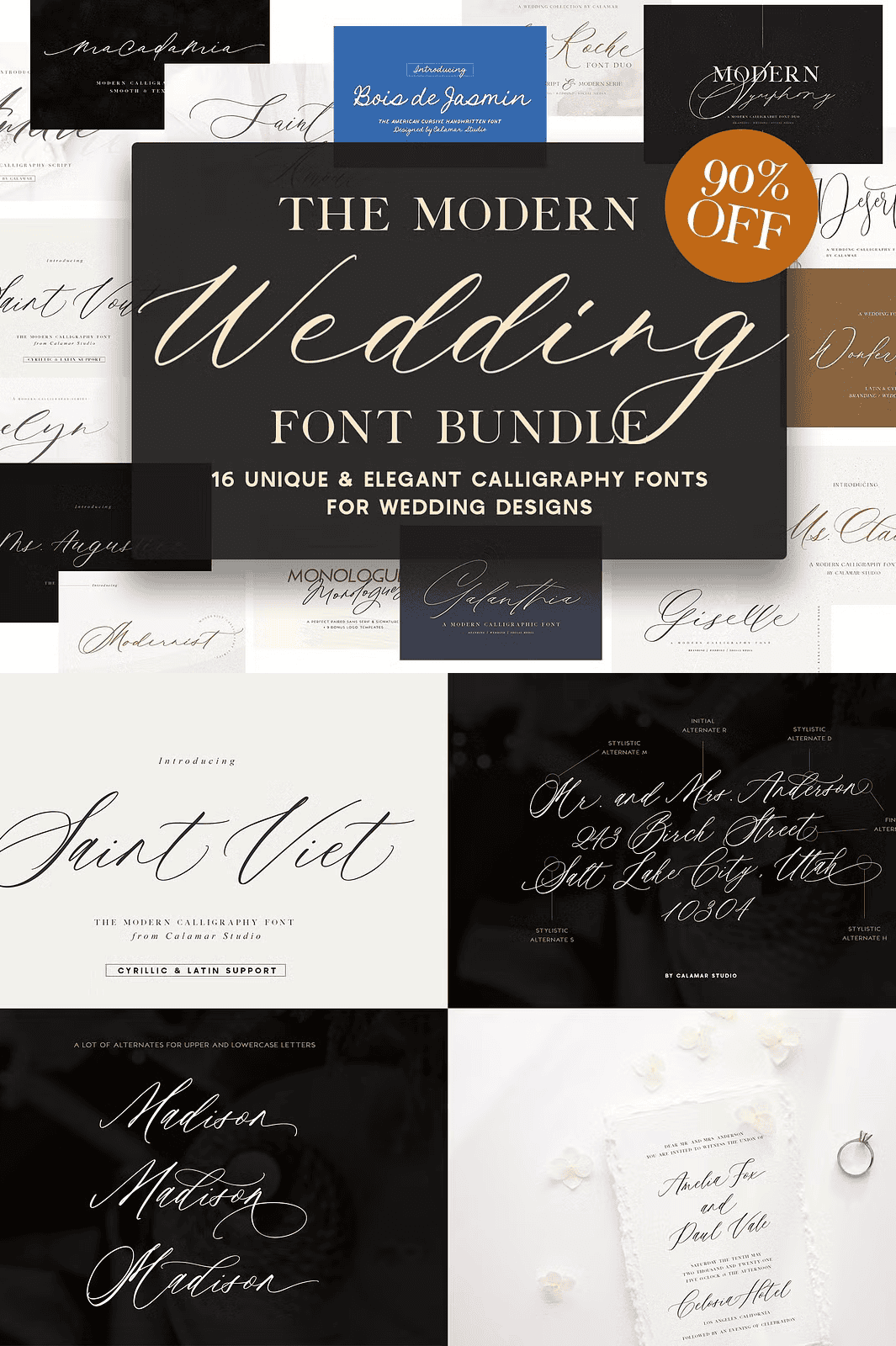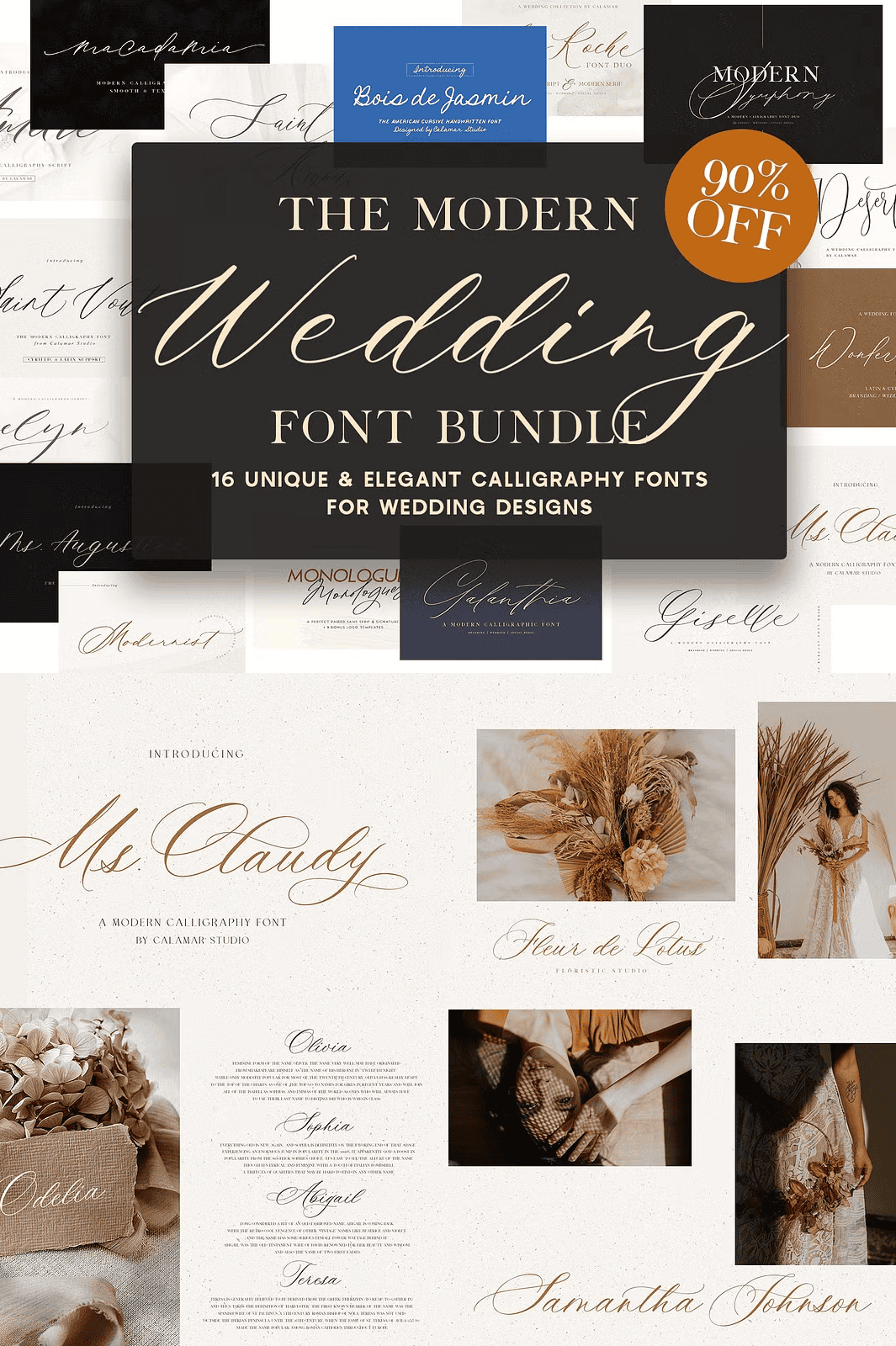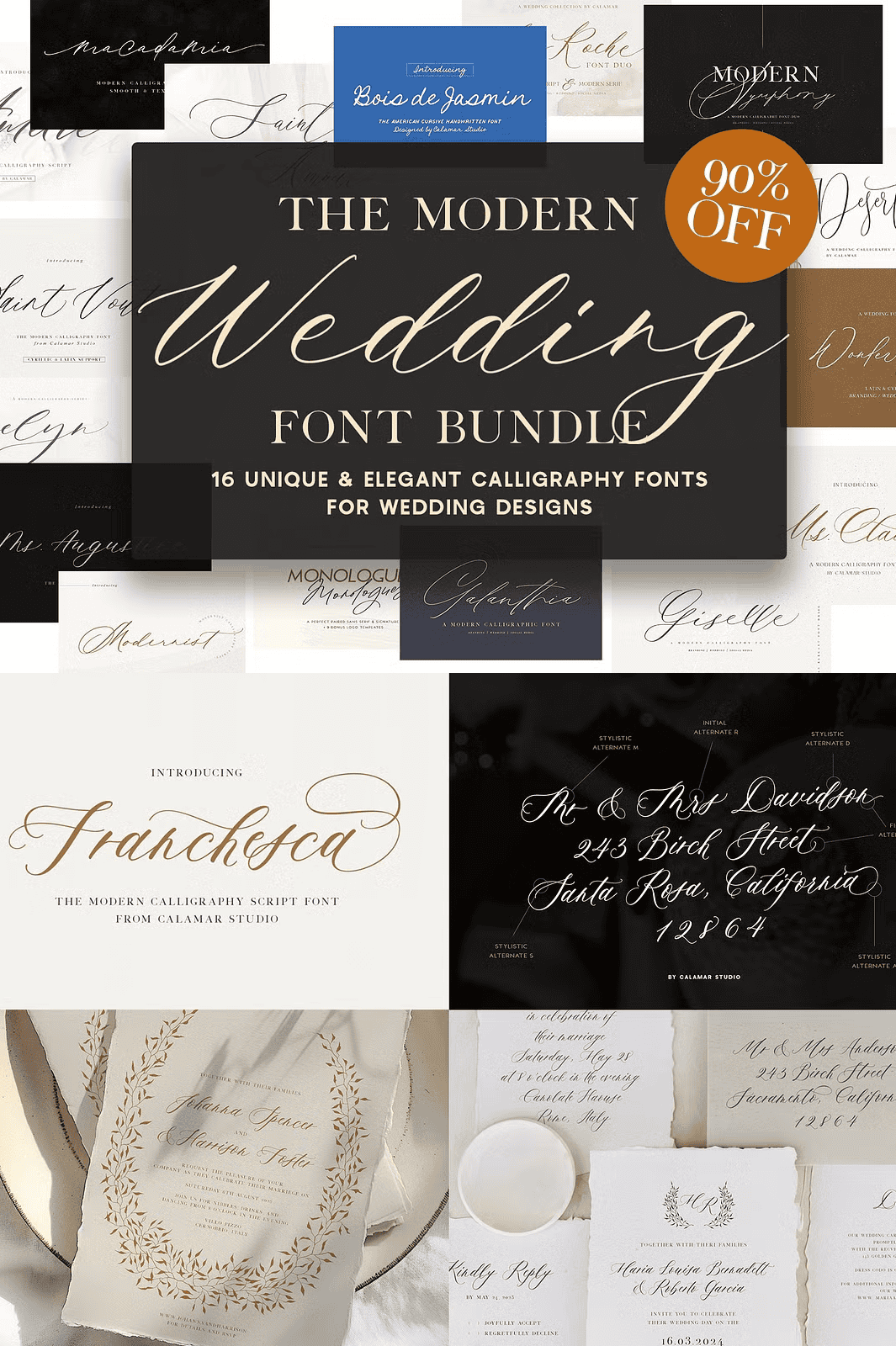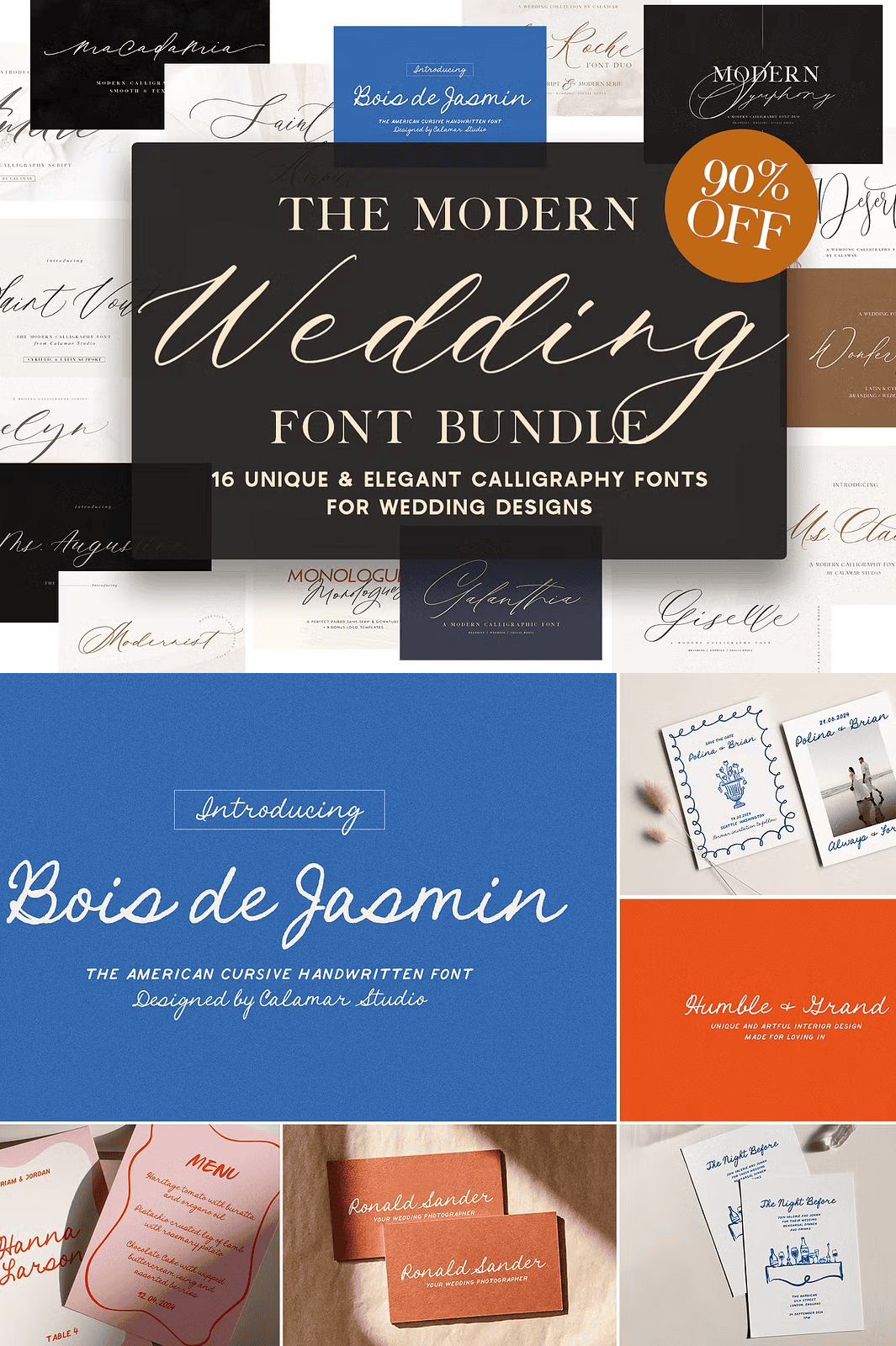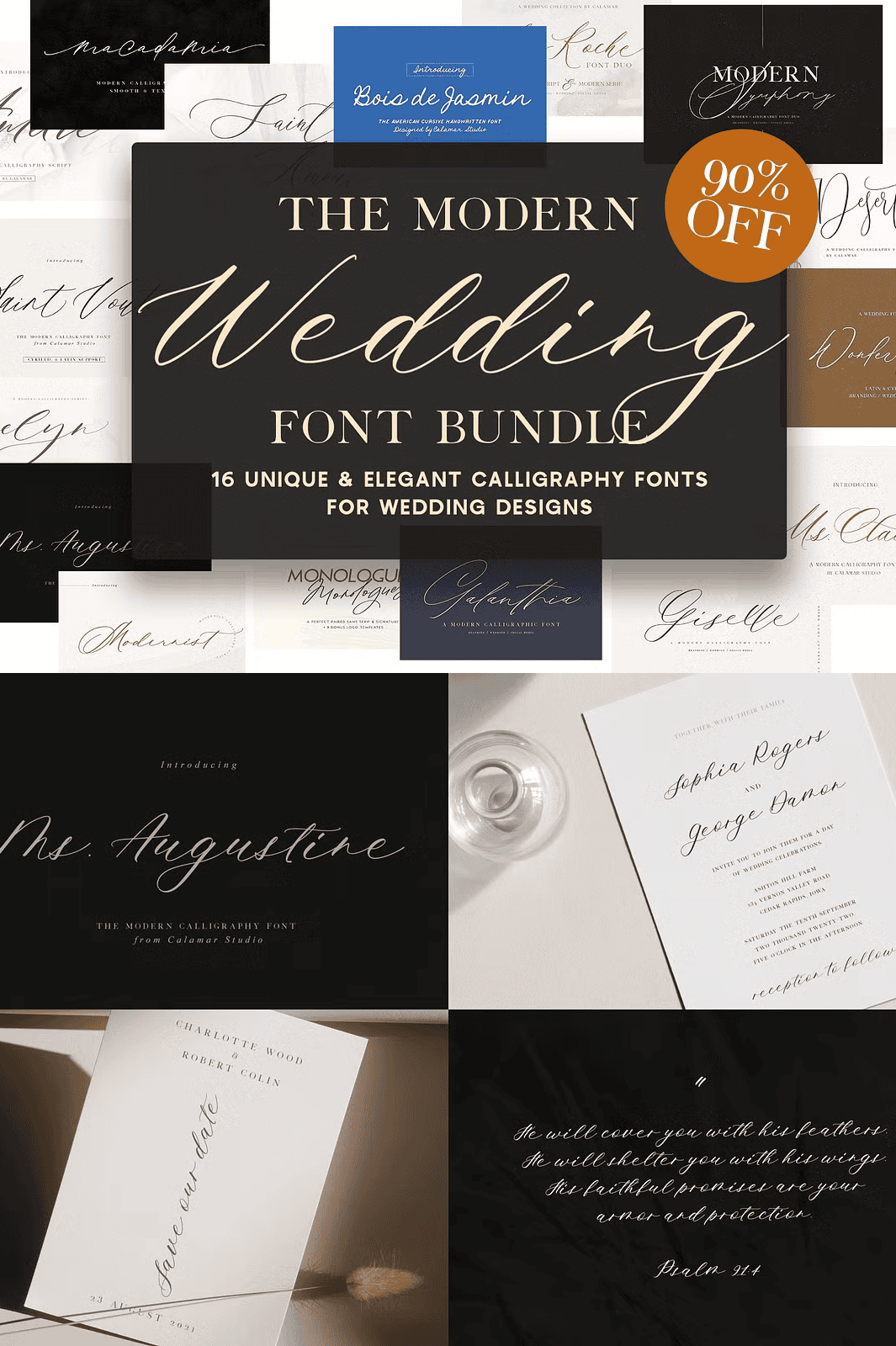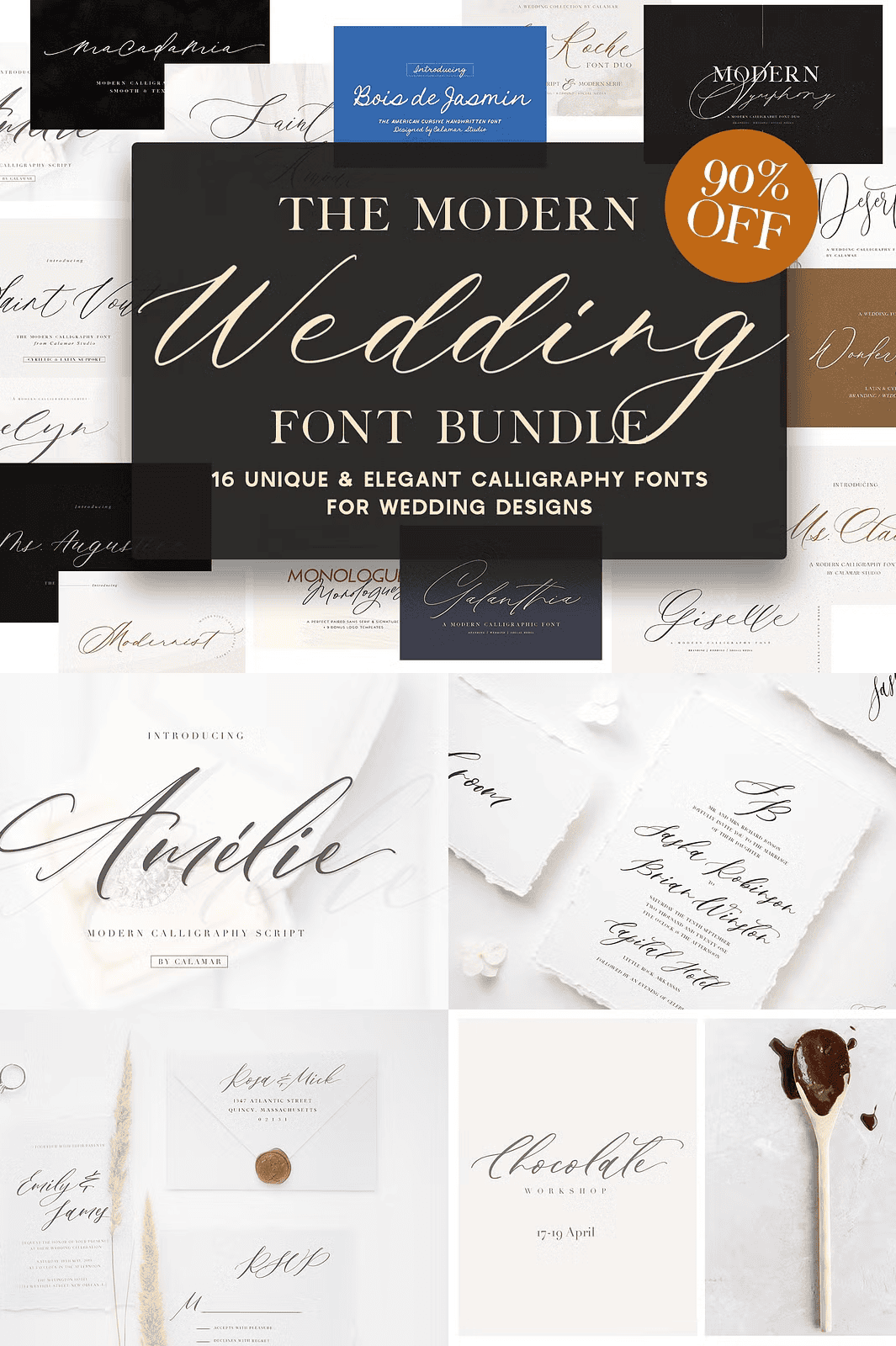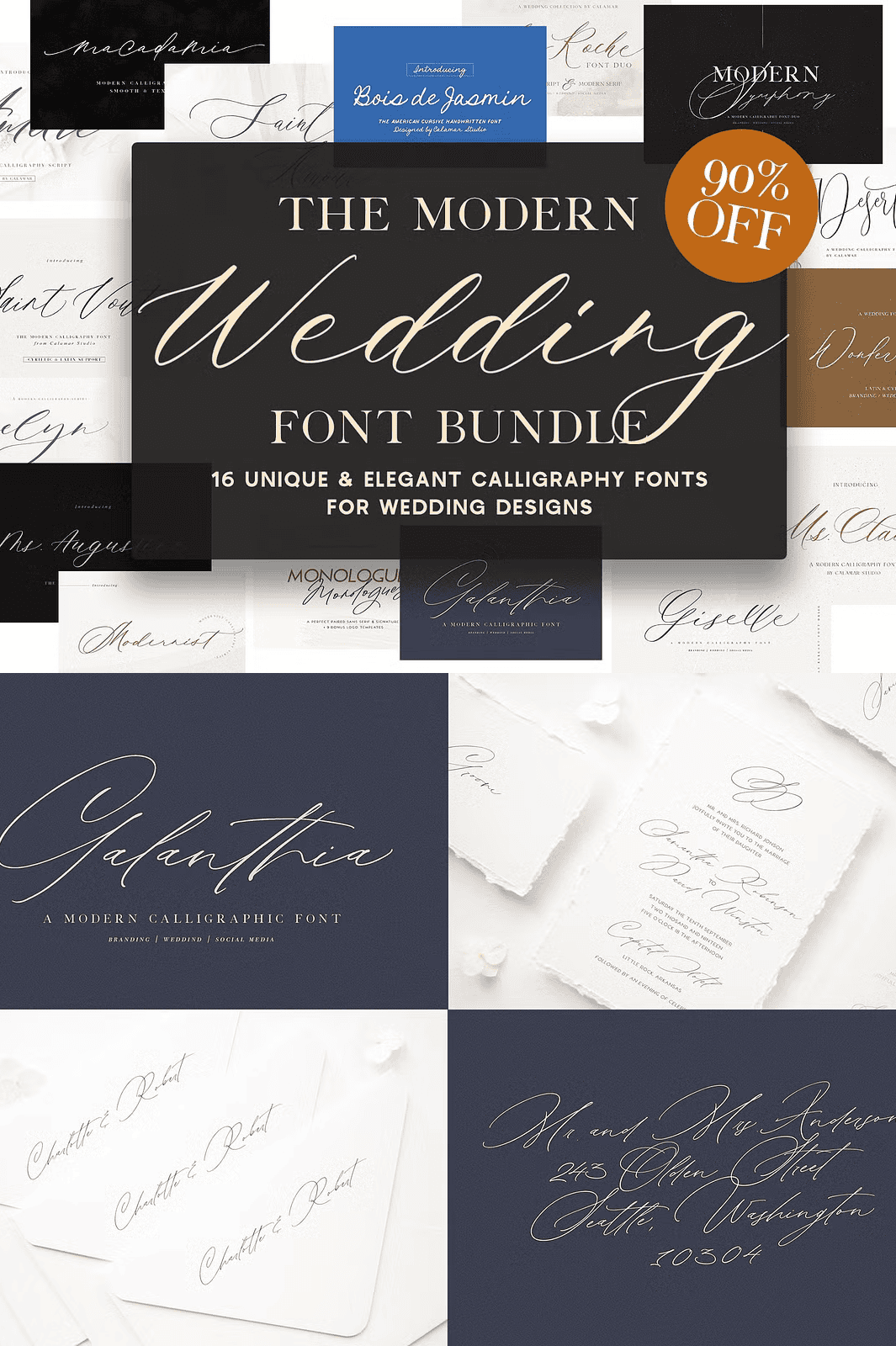
The Wedding Calligraphy Font Bundle
Unleash Elegance with Premium Hand-Lettered Typography
Step into the world of timeless romance with the **Wedding Calligraphy Font Bundle** a meticulously curated collection of 17 exquisite calligraphy and script fonts designed to elevate every special occasion. Whether you’re crafting heartfelt wedding invitations, elegant save-the-date cards, or sophisticated branding for bridal boutiques, this bundle delivers the refined grace and emotional depth your projects deserve.
Each font in this bundle is crafted with precision and soul, blending modern digital technology with the delicate artistry of hand-lettered calligraphy. These are not just fonts they are creative tools that bring sincerity, beauty, and intention to every word you design.
What’s Included in the Premium Calligraphy Bundle
• Ms Claudy – A refined script with flowing curves and delicate flourishes, perfect for formal invitations and luxury branding.
• Franchesca – A bold, expressive script with a vintage charm, ideal for rustic-chic themes and modern romantic designs.
• Saint Viiet – A delicate, almost lace-like script with a dreamy, ethereal quality for dreamy wedding aesthetics.
• Ms Augustine – A confident and structured script with balanced proportions, great for formal announcements and minimalist designs.
• Modernist – A sleek, minimalist script with clean lines and a contemporary edge, perfect for modern and industrial-themed weddings.
• Bois de Jasmin – A soft, airy script with subtle flourishes and organic rhythm, ideal for nature-inspired weddings.
• Macadamia – A whimsical, playful script with bubbly characters that brighten any design with warmth and charm.
• Modern Symphony – A harmonious blend of modernity and elegance, featuring smooth transitions and elegant spacing.
• Desert Song – A bold, expressive font with dramatic strokes, perfect for adventurous, desert-themed weddings.
• La Roche Font Duo – Two complementary fonts designed to work seamlessly together for dynamic layouts and layered designs.
• Wonder Garden – A lush, botanical-inspired script with flowing letters like vines and petals, perfect for garden weddings.
• Giselle – A refined, high-contrast script that exudes luxury and sophistication, ideal for black-tie events.
• Monologues Font Duo – A dual-font pair that provides variety and rhythm, enabling expressive typographic storytelling.
• Saint Amour – A romantic, slightly bolder script with deep emotional resonance, perfect for personal letters and heartfelt messages.
• Roselyn – A soft, feminine script with a vintage feel, bringing nostalgia and warmth to every project.
• Galanthia – A crisp, elegant script with a classic European influence, ideal for timeless, traditional designs.
• Amelie – A modern, fluid script with a light and airy feel, perfect for contemporary and minimalist aesthetics.
Don’t just design inspire. Don’t just write storytell. With the Wedding Calligraphy Font Bundle, your words become works of art, your invitations become heirlooms, and your brand becomes unforgettable.